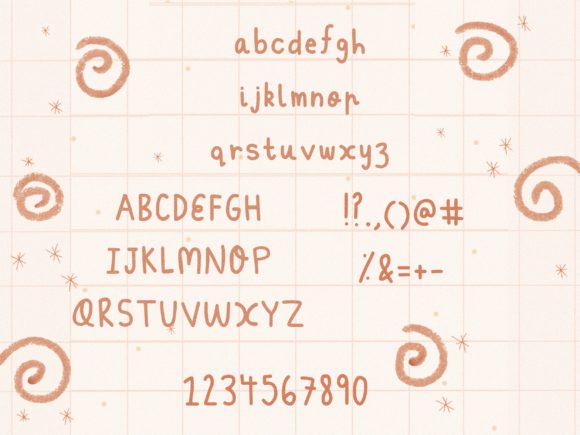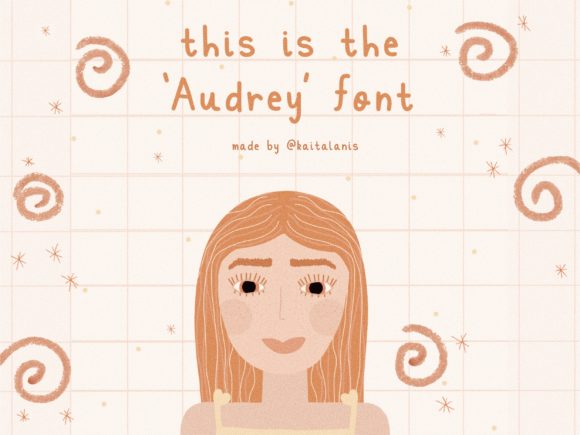
The Audrey Font: A Simple yet Stunning Handwritten Delight
I’ll never forget the moment I stumbled upon the Audrey font while working on a project for a client’s wedding invitation. I had been searching for the perfect handwritten font for hours, but everything I found was either too thin, too thick, or just plain boring. That’s when I discovered Audrey – a simple and cute handwritten font that instantly captured the playful yet elegant vibe I was going for.
An Honest Review of Audrey Font
So, what makes Audrey so special? Let’s dive into the good stuff and a few quirks I’ve noticed.
What I Love About Audrey Font
• ✨ Balanced and varied: Audrey’s strokes are perfectly balanced – not too thin and not too thick. This makes it easy to read and beautiful to look at.
• ✅ Elegant yet playful: This font effortlessly walks the line between elegance and playfulness, making it perfect for a wide range of projects.
• 💕 Handwritten charm: Audrey’s handwritten feel adds a personal touch to any design, making it perfect for projects that require a bit of warmth and personality.
While Audrey is an amazing font, there are a few things to keep in mind:
• 🤔 Limited use in very large or very small sizes: While Audrey looks great in most sizes, it may not be the best choice for very large headings or very small body text.
• ⚠️ Some letters may appear similar: As with any handwritten font, some letters may appear similar, which can make reading more difficult if you’re not used to it.
The Story Behind Audrey Font
Audrey was designed with the intention of creating a simple yet stunning handwritten font. The designer aimed to craft a font that was balanced, elegant, and playful – perfect for a wide range of creative projects. While the exact story behind Audrey’s creation is unclear, it’s evident that the designer put a lot of thought into creating a font that’s both beautiful and functional.
Q: What makes Audrey font unique?
A: Audrey’s unique blend of elegance and playfulness, along with its balanced and varied strokes, make it a standout font.
Q: Is Audrey a difficult font to read?
A: No, Audrey is designed to be easy to read. Its clear and balanced strokes make it perfect for body text and headings.